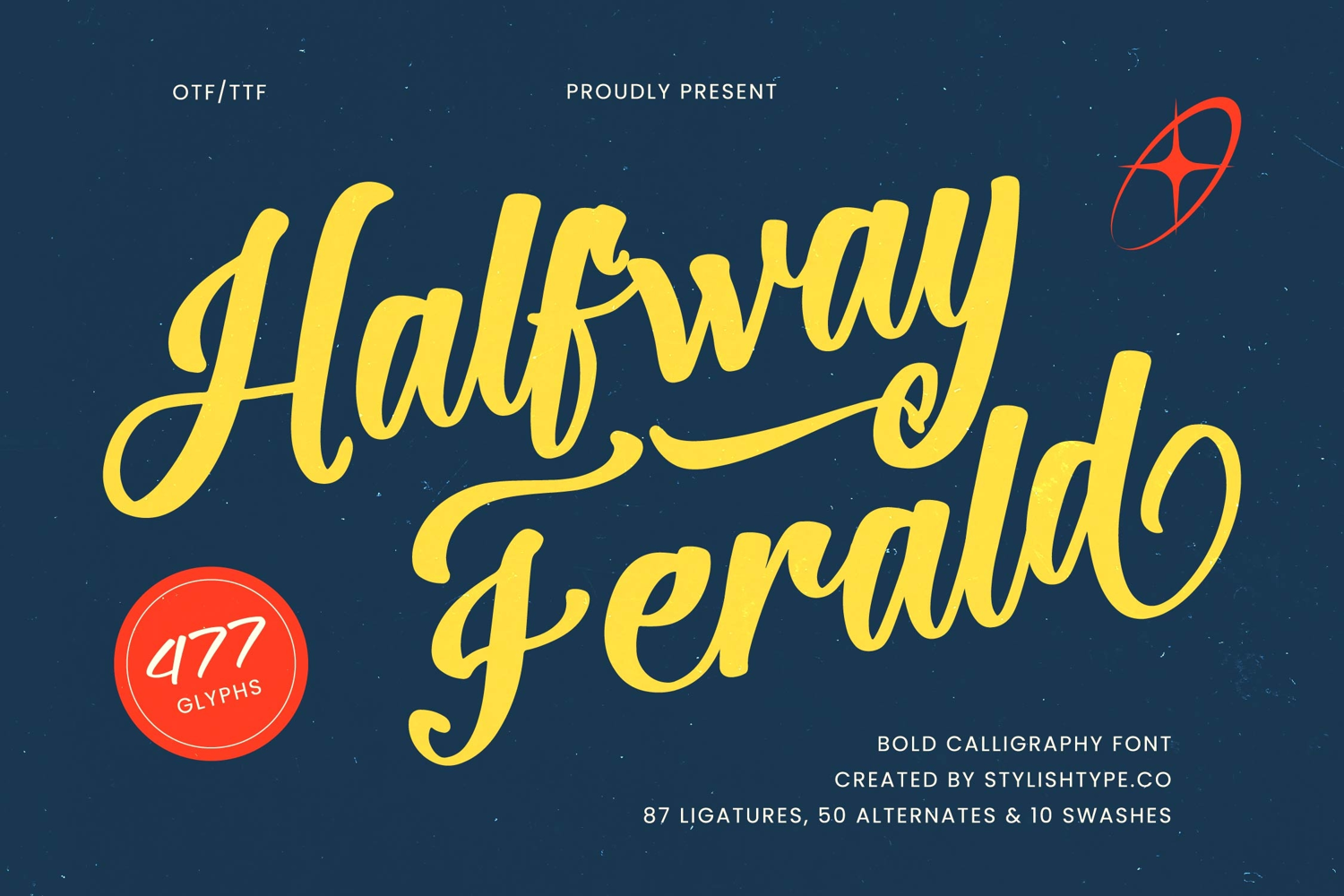
Halfway Ferald - Bold Calligraphy Font
Halfway Ferald - Bold Calligraphy Font. This dynamic typeface captures the unmistakable spirit of authentic hand-lettering, combining powerful, voluminous strokes with the energetic flow of a signature script. Designed for maximum attention, its thick-to-thin calligraphy structure ensures readability even in large display settings, delivering a sense of joyful, retro confidence that stands apart in a crowded marketplace.